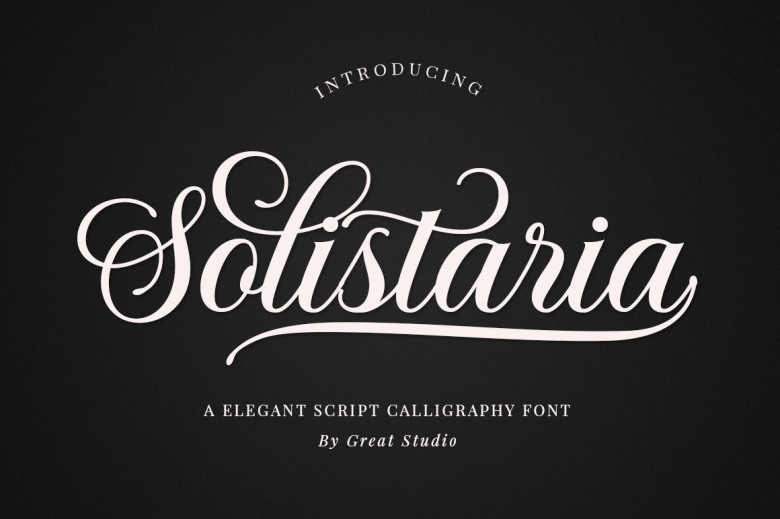
Solistaria Font
Solistaria script is an exciting new calligraphy font with vintage yet modern touches, featuring handlettering and copper calligraphy techniques. OpenType format with Stylistic Alternatives such as Swash, Ligatures and Stylistic Sets make this font easy to incorporate into designs as it comes complete with ornaments that make the design appear flawless.
Solistaria Script offers a feminine, elegant, sophisticated, and glamorous appearance while being easily legible. This classic font style can be applied in various formal forms like invitations and labels; its classic feel also lends itself well to logos, fashions, make-up applications, stationery covers, book covers greeting cards wedding cards packaging labels as well as much more!
Solistaria Calligraphy Font